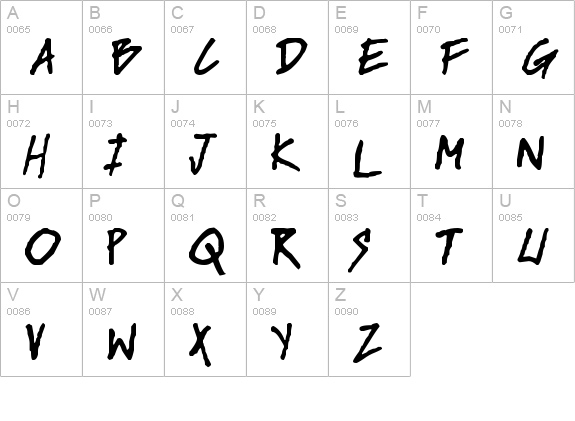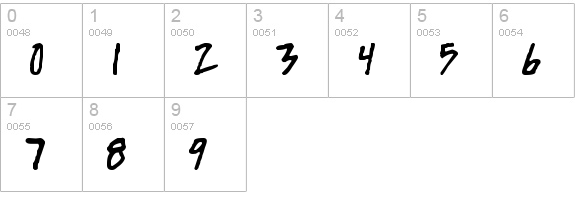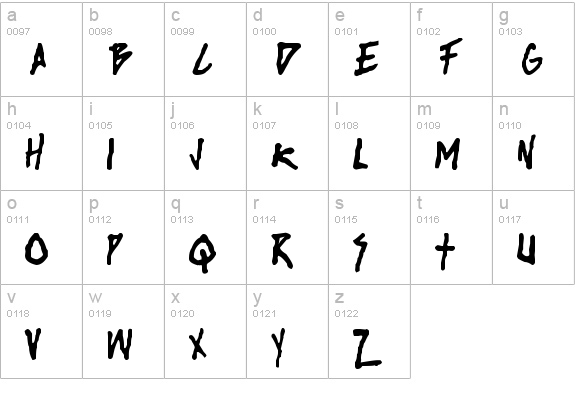
rise up Font Details
"Rise Up Font is a bold and dynamic typeface that exudes energy and modernity. With its strong lines and sharp edges, this font is perfect for creating eye-catching designs that demand attention. Whether you're designing a poster, logo, or branding materials, Rise Up Font will elevate your projects to new heights. The best part? It's completely free for personal and commercial use! You can download Rise Up Font for free at FontsMarket.com and start using it in your projects today."